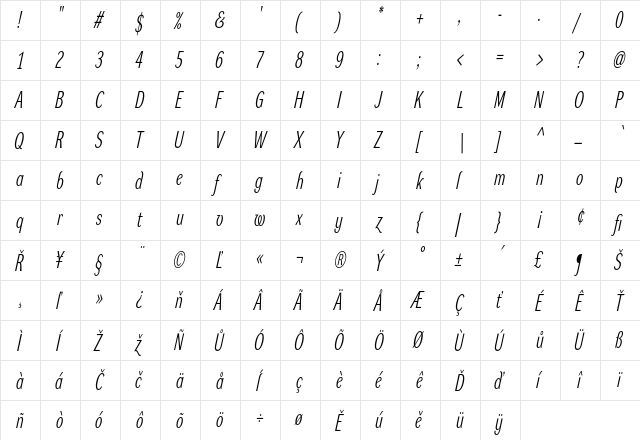
Dynamo LXC Regular
Design Context for Dynamo LXC Typeface
Dynamo LXC offers clean, dependable letterforms without strong stylistic allegiance, making it a practical choice for designers who need flexibility.